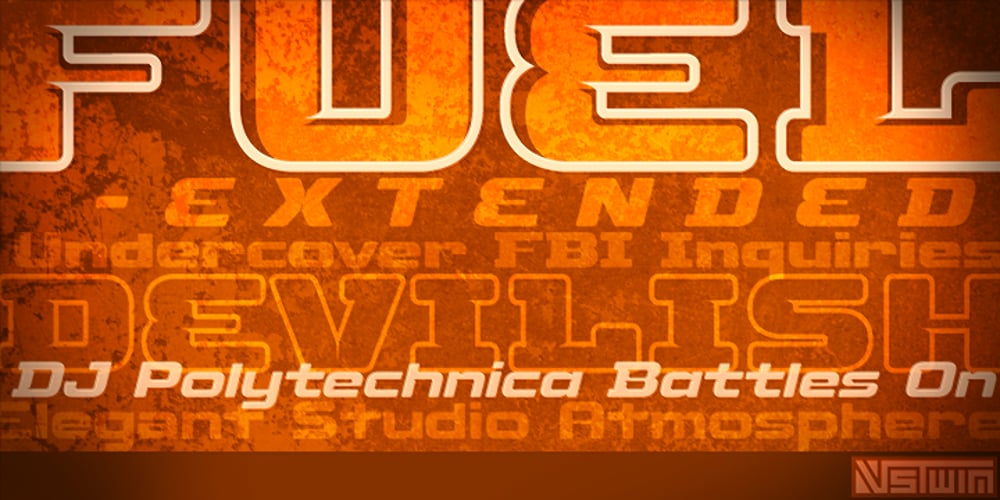
Fuel Extended
Fuel Extended font
Fuel Extended Font Family was designed by Brian J. Bonislawsky, Brian Jaramillo and published by VersusTwin. Fuel Extended contains 5 styles and family package options. The Fuel Extended typefaces are a modern update on the techno sans extended for stronger impact, complete with soft rounded corners as well as decorative inktraps. Stylistic Alternates included within all styles are alternates for the capital B, E, G, and R characters, as well as all of their accented siblings. The Fuel Complete package bundles all of the dynamic styles of the Fuel, Fuel Extended, Fuel Uni, Fuel Uni Extended, and Fuel Script typefaces into one powerhouse of a collection.